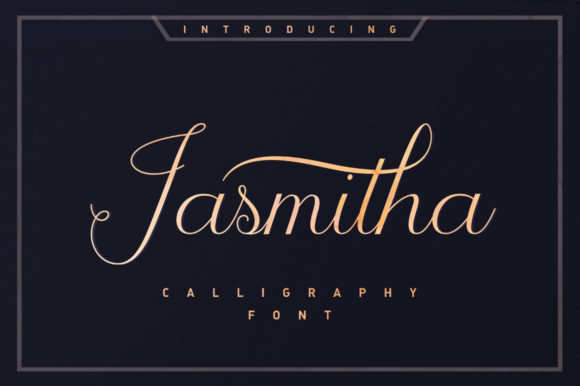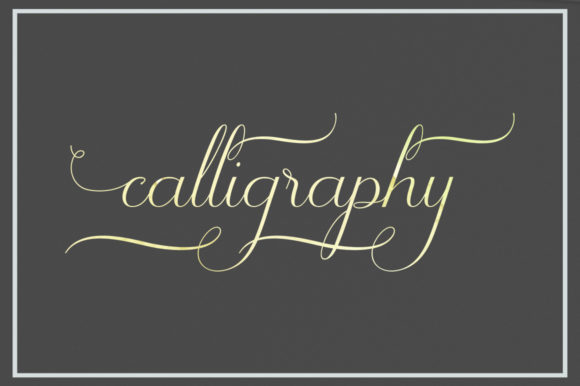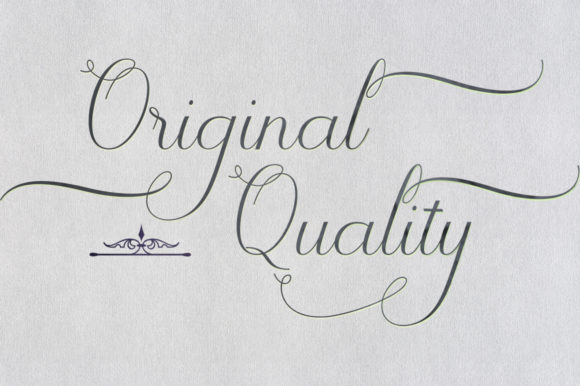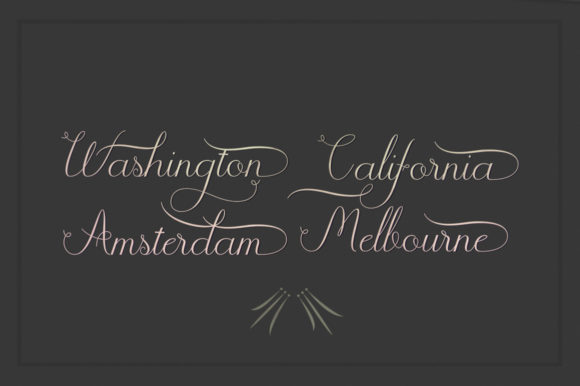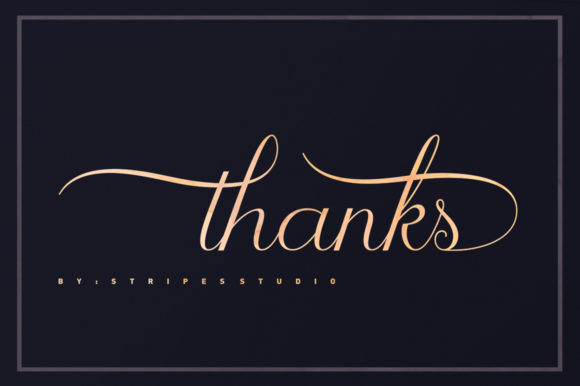
Jasmitha Script Font
About Jasmitha Script Font
The Jasmitha is a modern handwritten script. It’s easy to use and has a great readability. Perfect for branding designs!